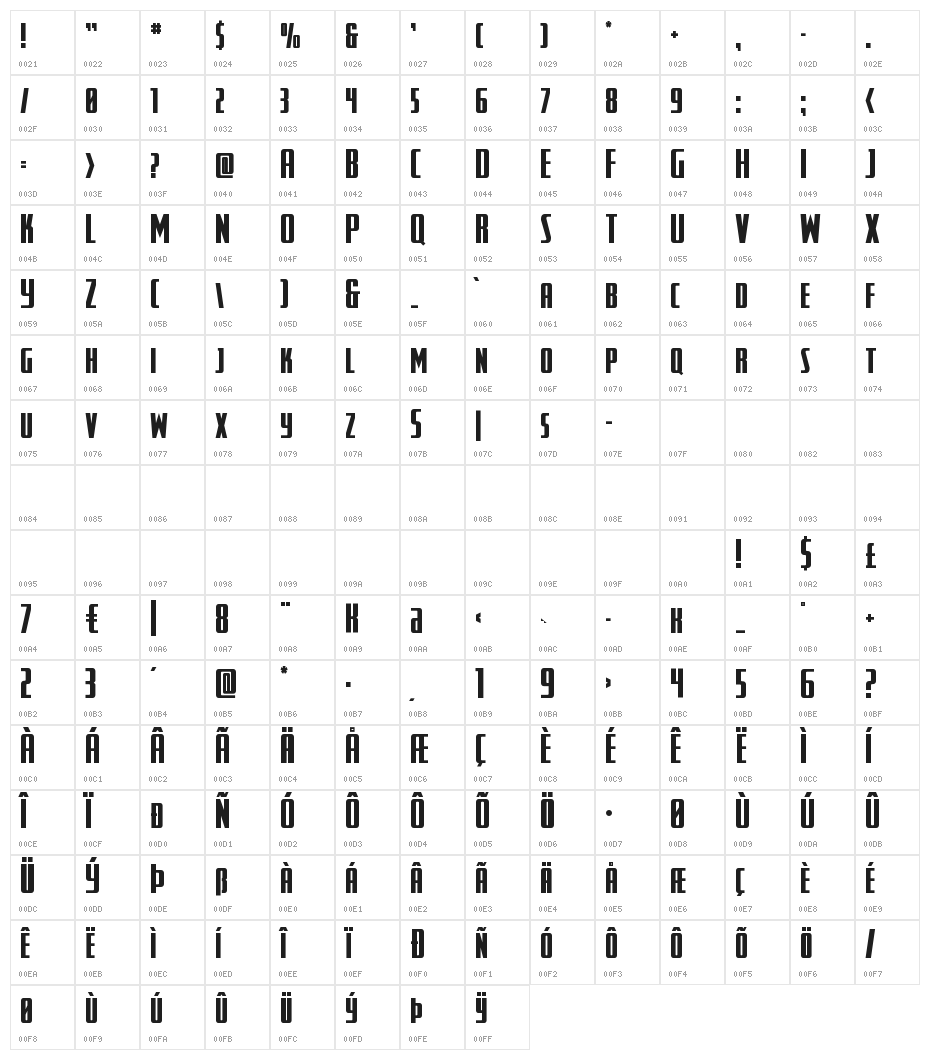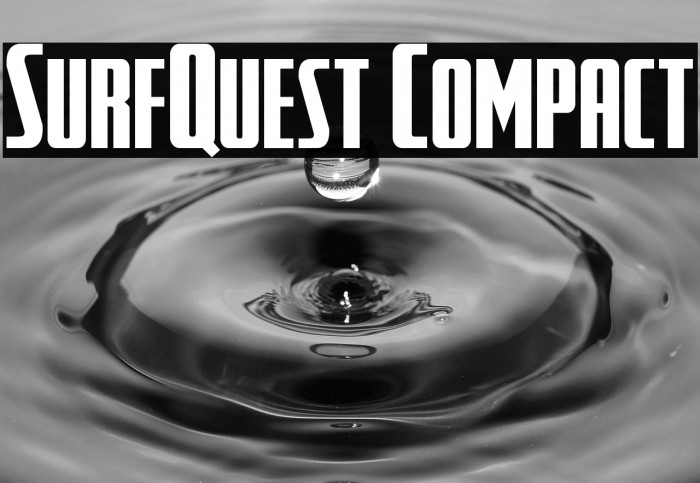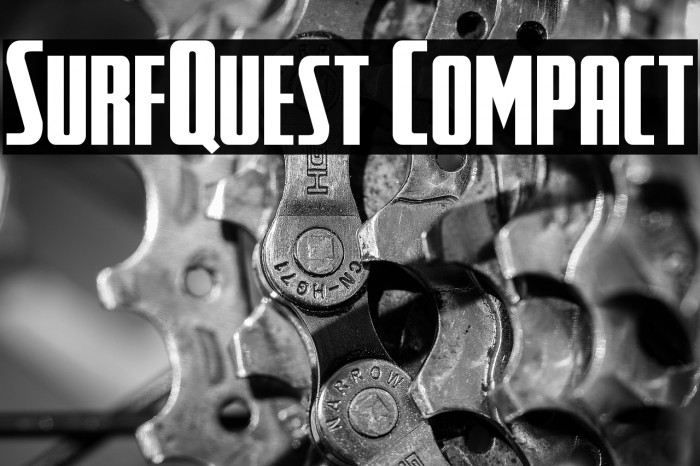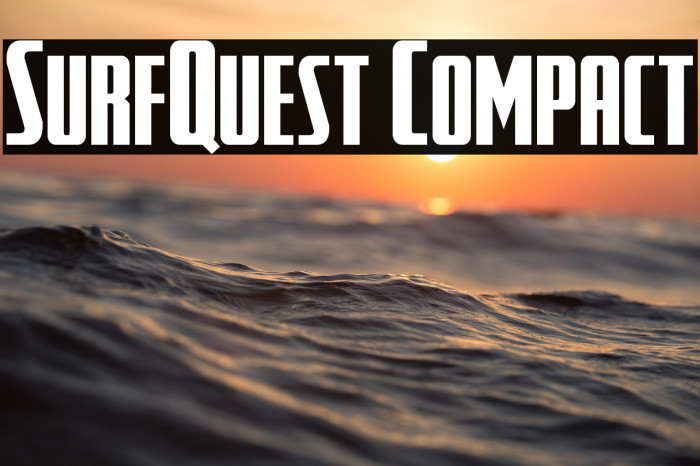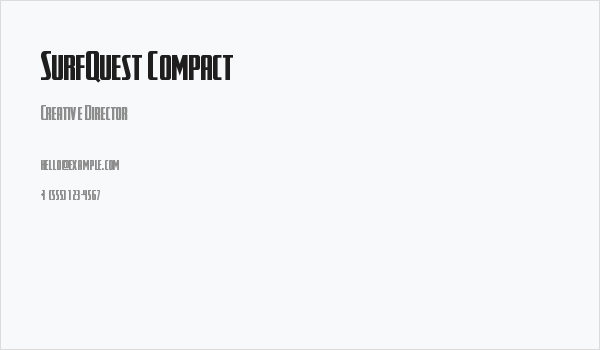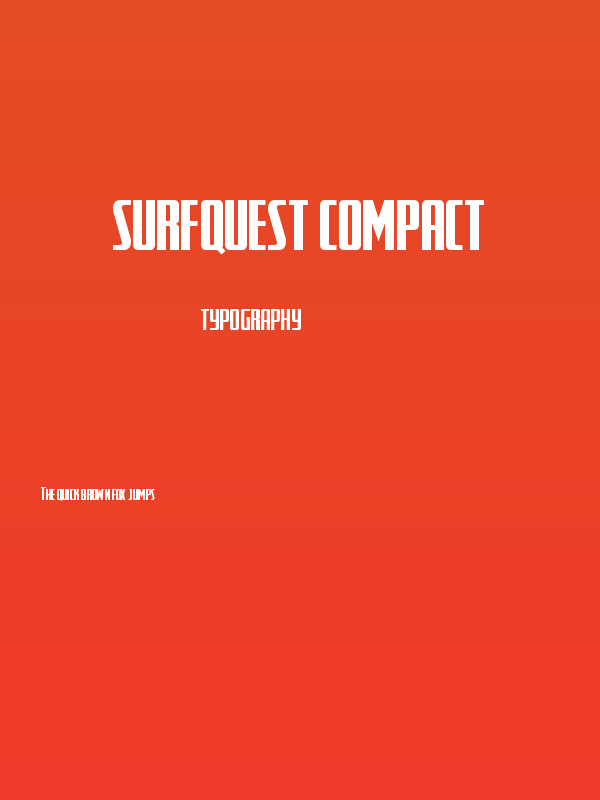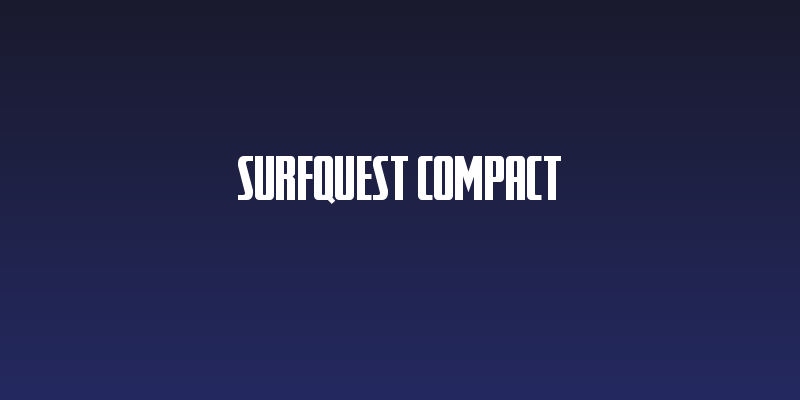
SurfQuest Compact Font
SurfQuest Compact Description
This font features a bold and impactful design with a strong presence, characterized by its tall, condensed letterforms. The uppercase letters dominate with their sharp, angular edges and uniform stroke width, creating a sense of strength and authority. The numerals and special characters maintain this boldness, ensuring consistency across all glyphs. The overall style is modern and assertive, making it suitable for attention-grabbing headlines and titles. Its compact nature allows for efficient use of space without sacrificing readability.
| Proposed Projects | Ideal for posters, logos, branding, and any project requiring a strong visual impact. |